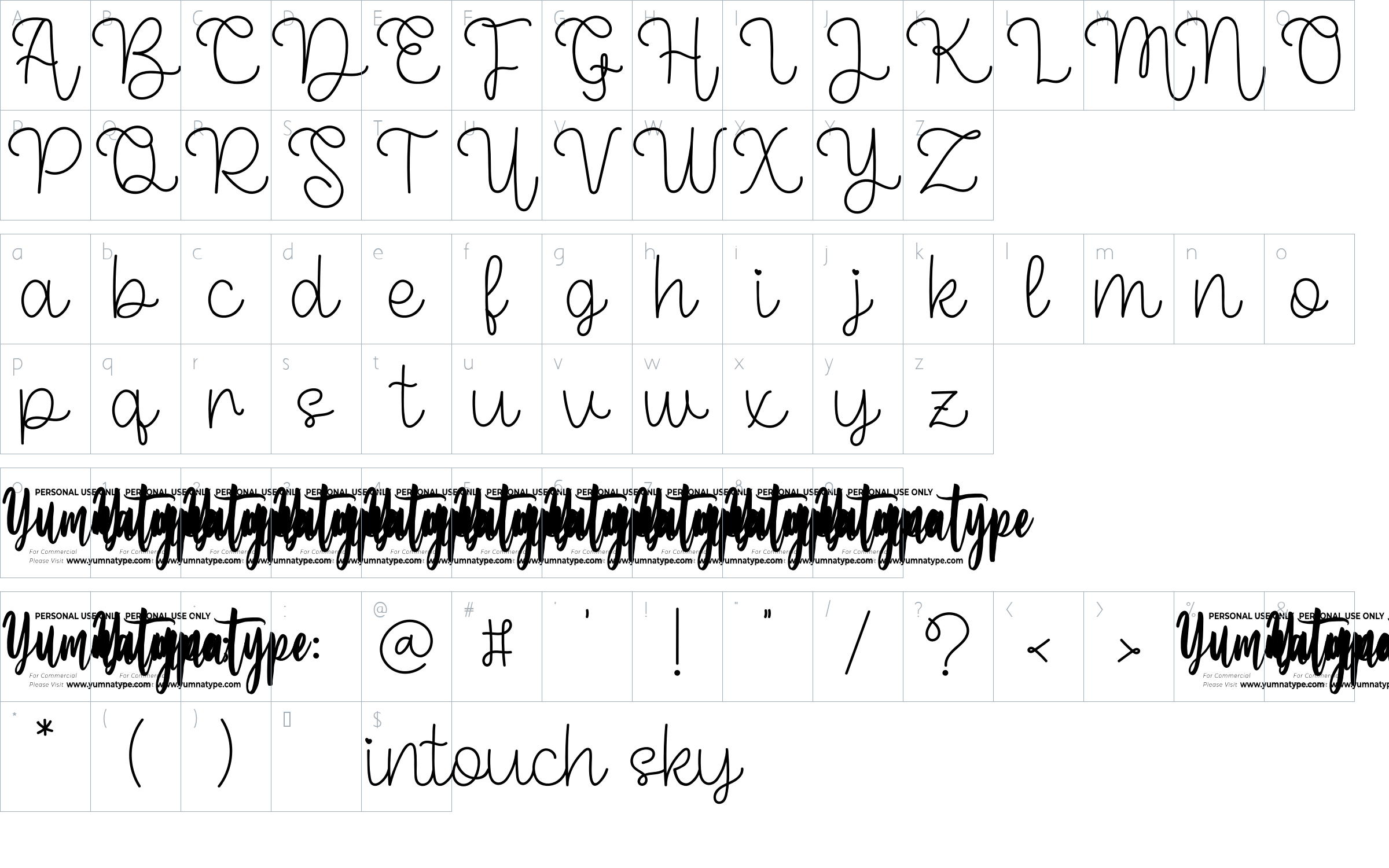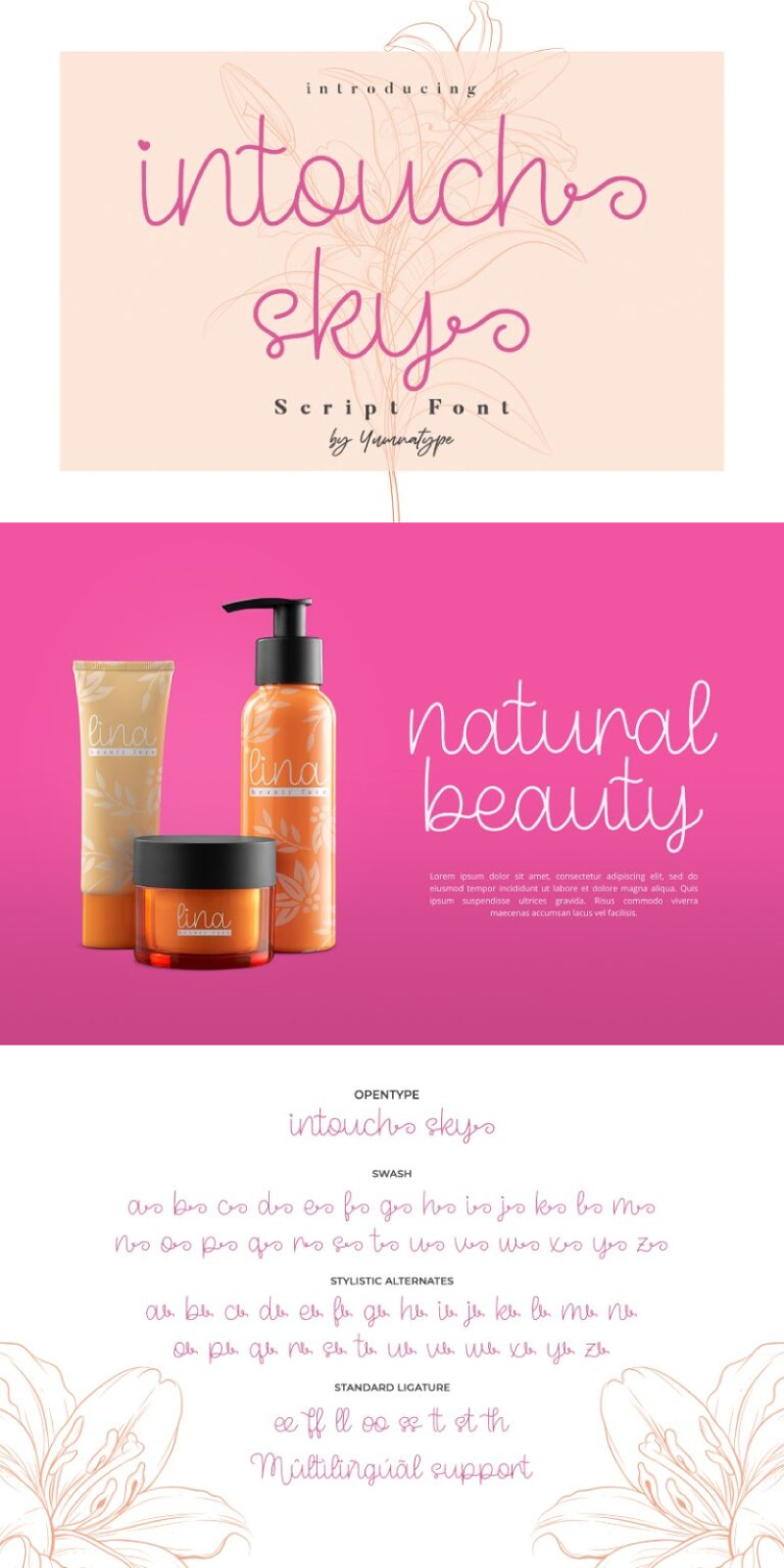
Intouch Sky Font
About Intouch Sky
Introducing Intouch Sky-An Elegant Handwritten Font.
This adorable, fun, and stylish font can be used for a host of different content needs and projects. Create gorgeous party invitations, printed quotes, standout packaging, or beautiful t-shirts! You can even use it to create amazing headings, logos, resumes, and social media graphics.